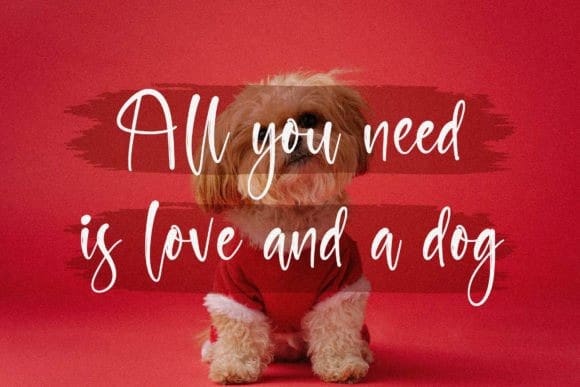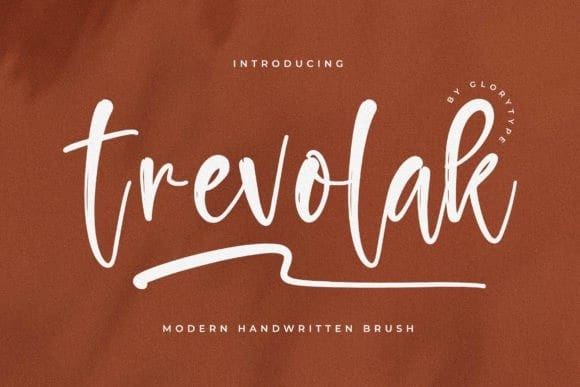
Trevolak Script Font
Trevolak Script Font – Modern Handwritten Brush font suitable for any projects such as logos, branding projects, homeware designs, product packaging, mugs, quotes, posters, shopping bags, t-shirts, book covers, name cards, invitation cards, greeting cards, labels, photography, watermark, special events, and all your other lovely projects that need a beautiful script taste.